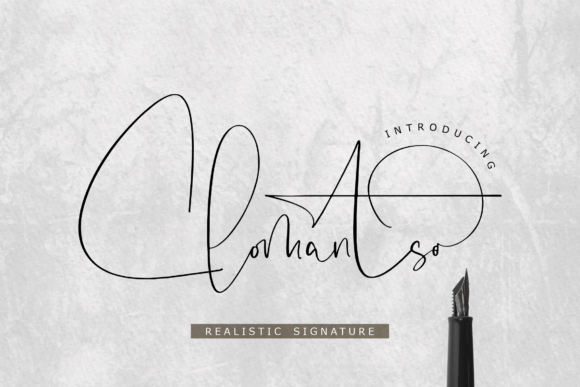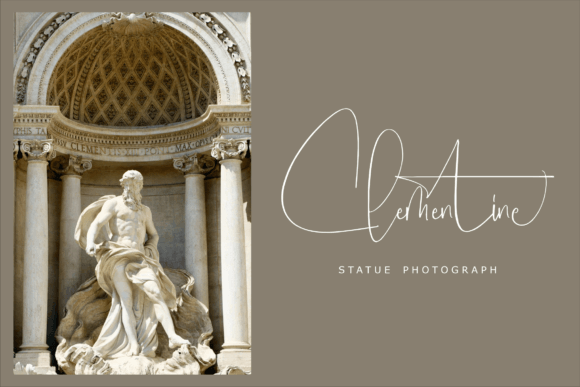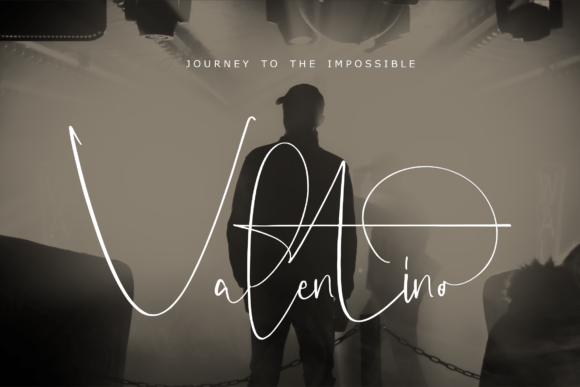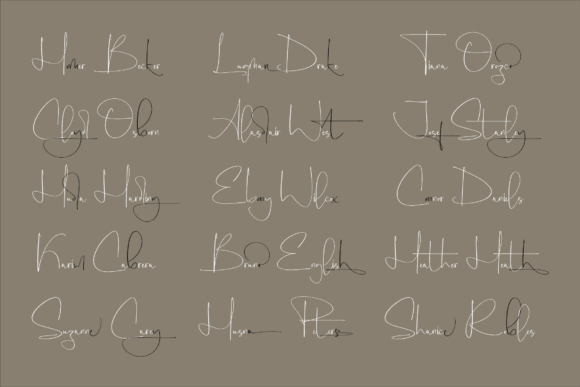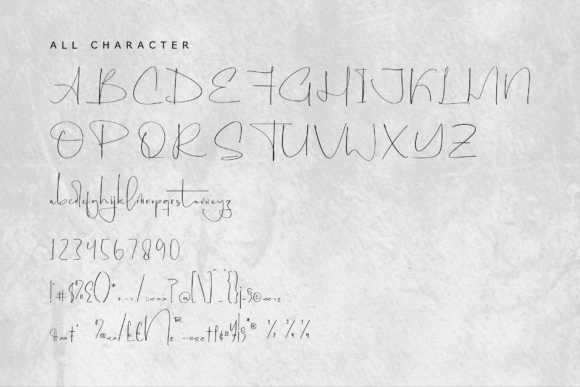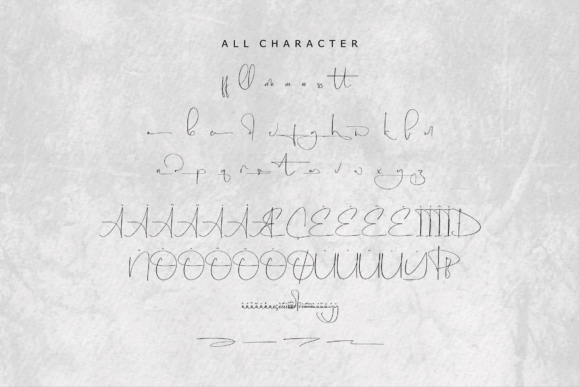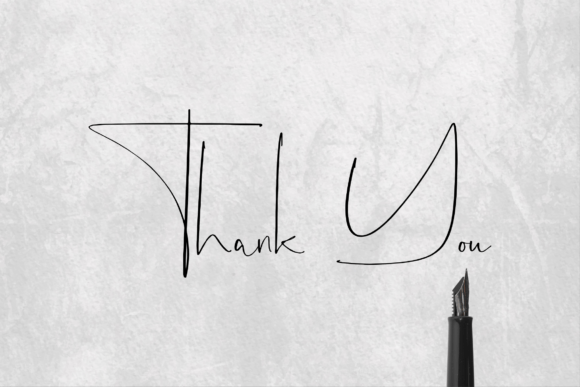
Clomantso
About Clomantso
Proudly present Clomantso – Realistic Signature , created by Storytype,
A luxury script that has own unique style & modern look.
This typeface is perfect for an elegant & luxury logo, book or movie title design, fashion brand, magazine, clothes, lettering, quotes, and so much more.